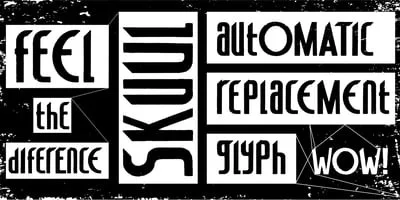
Skuul Font
Skuul Font is a bold and dynamic display typeface that often draws inspiration from collegiate sports, vintage school lettering, or robust industrial design. Its sturdy, assertive character and clear, impactful forms make it an excellent choice for projects demanding strength, team spirit, or a no-nonsense aesthetic. Imagine it perfect for university sports branding, high school yearbooks, strong event posters, durable product packaging, classic athletic apparel, or impactful headlines for youth-oriented campaigns. This font excels in environments where immediate recognition, a powerful visual identity, and a sense of enduring reliability are paramount. It’s particularly effective for conveying confidence, energy, and an unmistakable sense of established authority, ensuring your message not only stands out but also resonates with a powerful and memorable impact.
What makes Skuul Font truly exciting is its ability to blend a classic, almost nostalgic educational or athletic feel with modern design sensibilities. It often features strong, block-like forms or subtle serifs that give it a robust and dependable appearance, making it highly legible even at a distance. This font isn't just about displaying text; it's about making a statement, injecting your designs with a sense of purpose and unyielding spirit. It has a powerful ability to feel both incredibly strong and surprisingly versatile, making it an ideal tool for designers who want their work to convey strength, reliability, and a truly memorable visual impact. Skuul Font empowers brands and creatives to project an image of unwavering confidence and robust character.
The Skuul Font family typically offers a range of weights and styles to ensure maximum versatility for diverse design projects. You'll often find it includes a spectrum from regular to bold and even ultra-bold or black weights, providing robust options for typographic hierarchy and emphasis. Corresponding italic styles may also be available, allowing for dynamic variations in text presentation. This extensive family ensures that Skuul Font can adapt seamlessly to any design challenge, from powerful headlines that demand attention to clear, impactful sub-headings, all while maintaining a consistent and harmonious visual language. Its broad character set usually covers a wide range of Latin characters, numbers, and extensive punctuation, making it suitable for international projects and complex textual layouts.